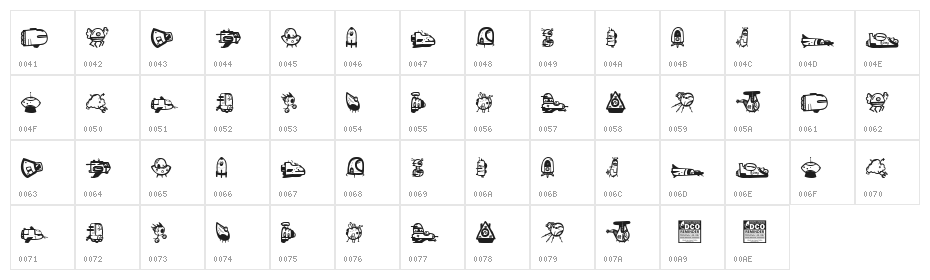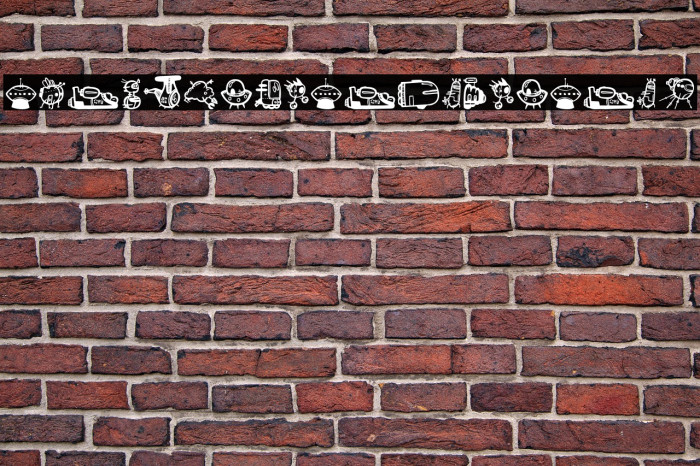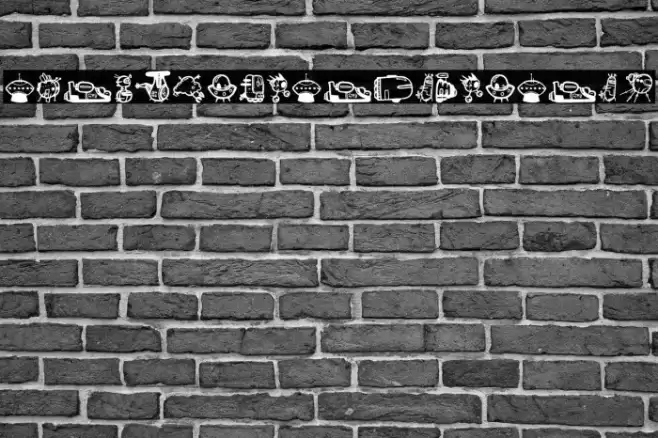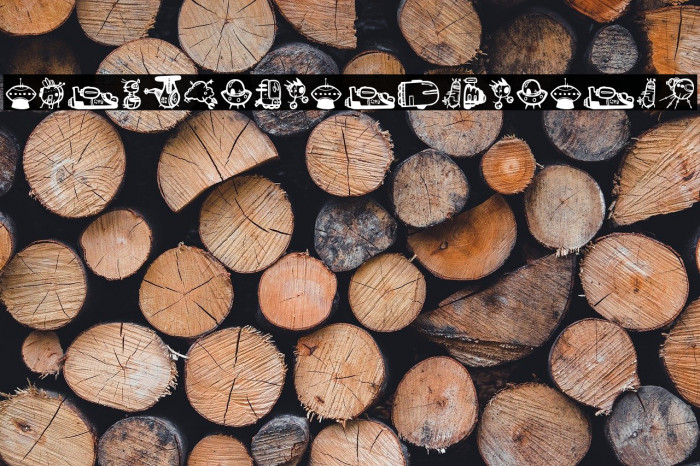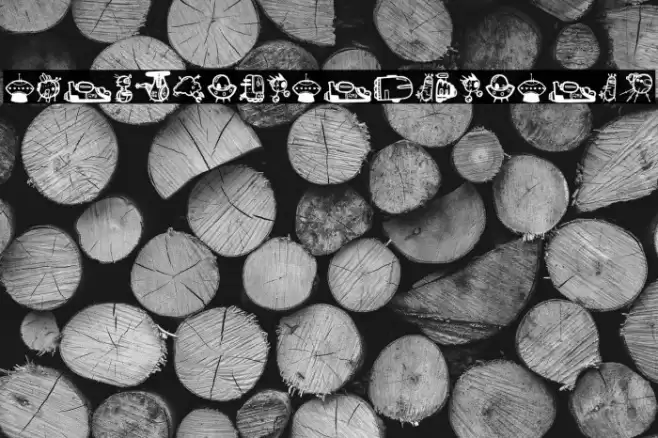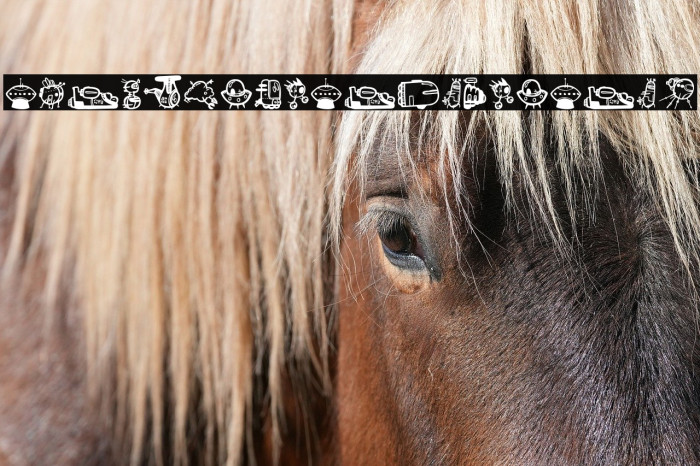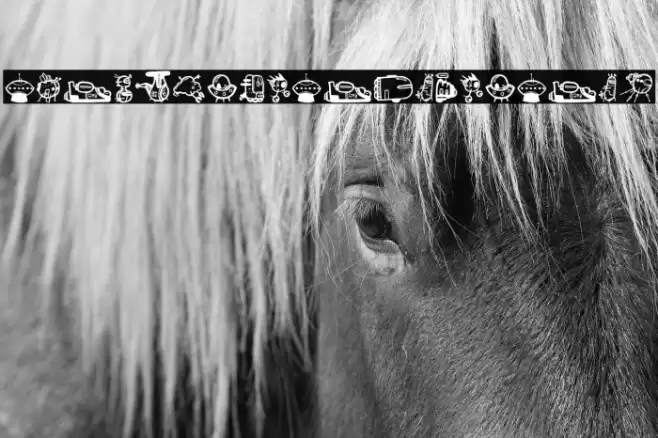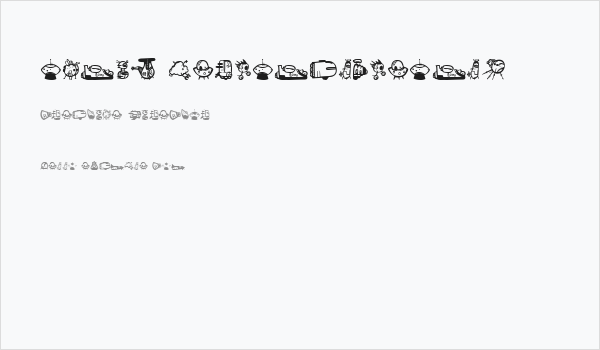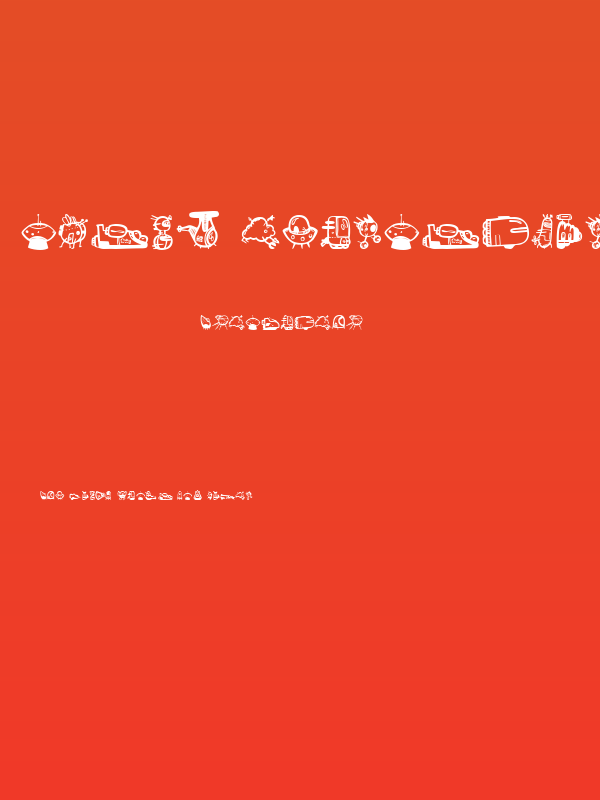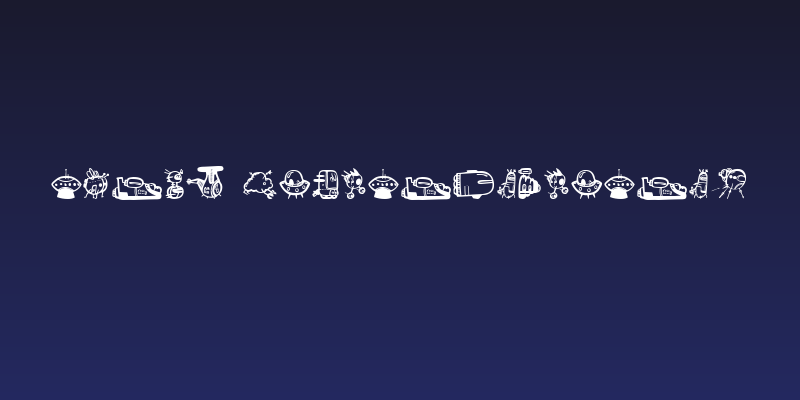
Ovniz_PersonalUseOnly Font
Ovniz_PersonalUseOnly Description
This font is a whimsical and playful collection of alien and spaceship-themed illustrations. Each character is represented by a unique, cartoon-style drawing that depicts various extraterrestrial creatures and spacecraft. The designs are bold and filled with quirky details, making them ideal for creative projects that require a fun and imaginative touch. The characters are consistent in style, with thick outlines and a hand-drawn aesthetic that adds to their charm. This font is perfect for projects aimed at children or for any design that seeks to incorporate a sense of adventure and fantasy.
| Use Case | Logos, Posters, Creative Projects |
| Proposed Projects | Ideal for children's books, sci-fi themed posters, party invitations, and educational materials. |